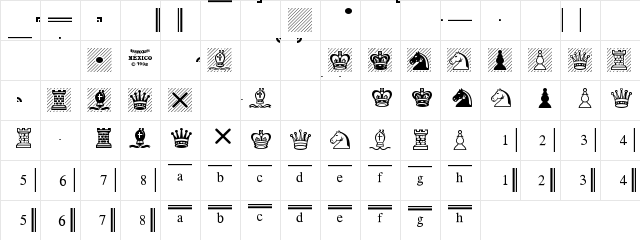
Chess Leipzig Regular
Design Context for Chess Leipzig Typeface
Chess Leipzig offers clean, dependable letterforms without strong stylistic allegiance, making it a practical choice for designers who need flexibility.